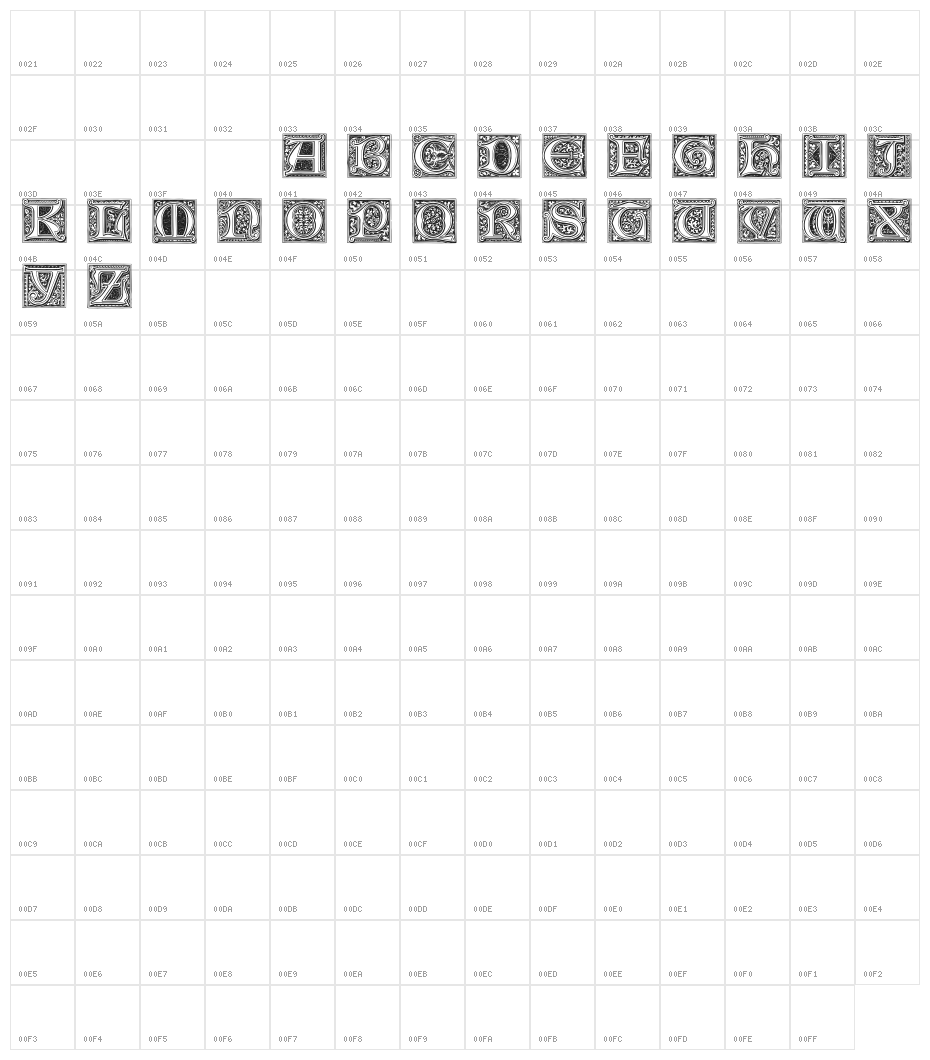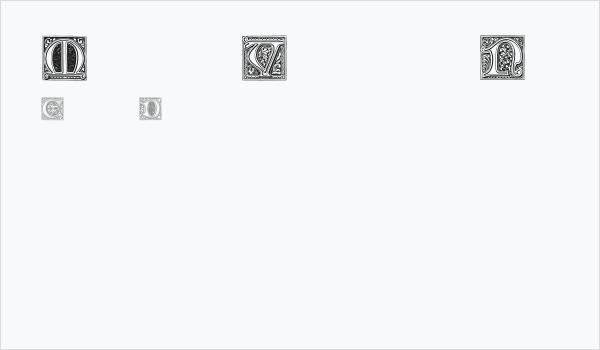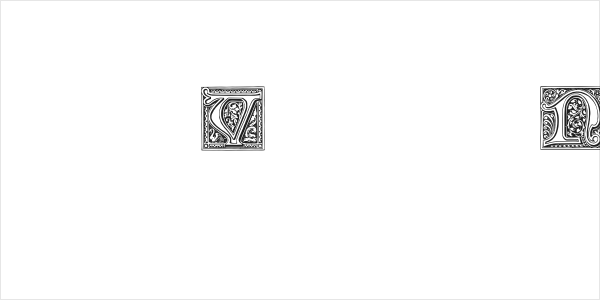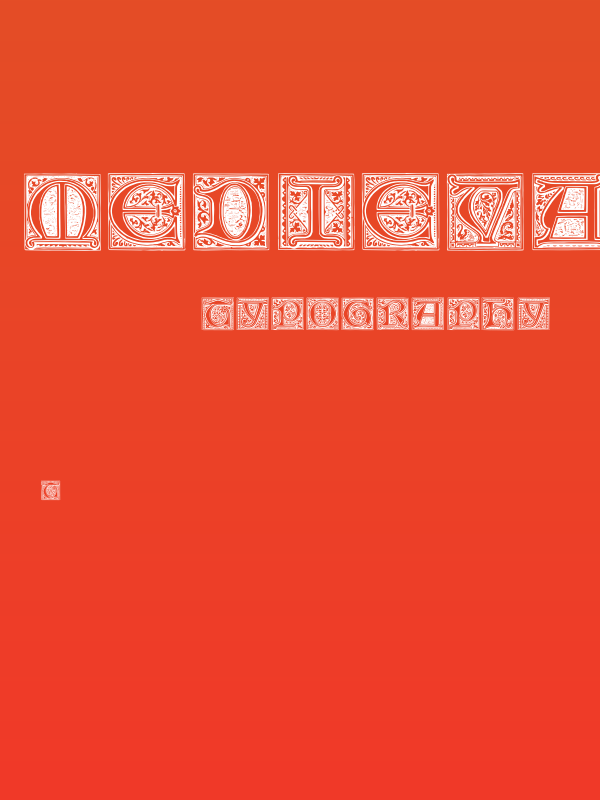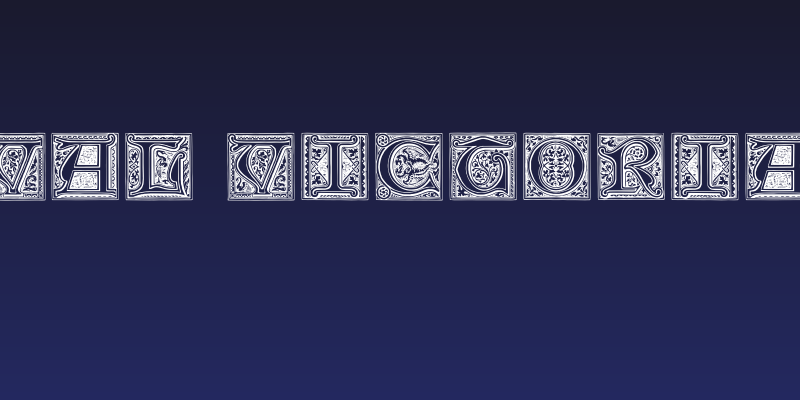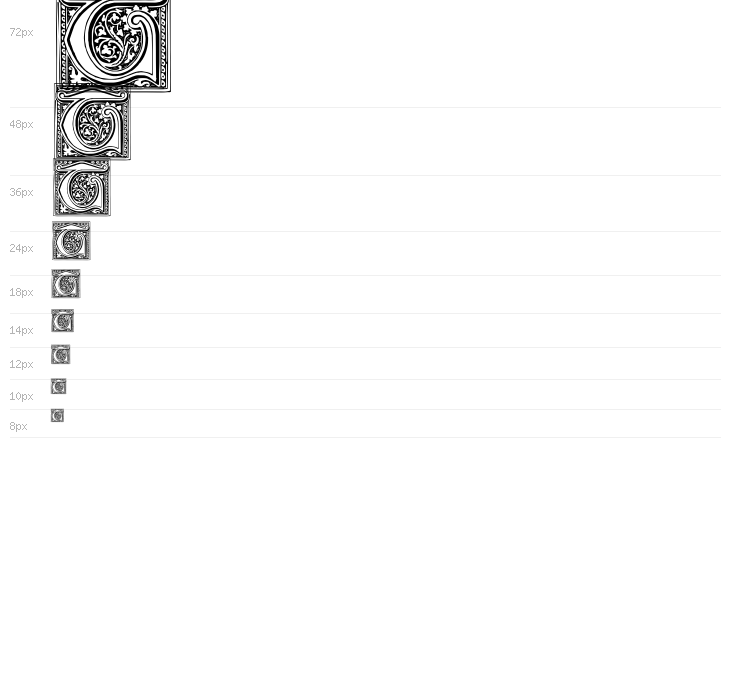
Medieval Victoriana No.1 Font
Medieval Victoriana No.1 Description
This font features an intricate and ornate design reminiscent of medieval and Victorian aesthetics. Each letter is enclosed within a decorative square, filled with elaborate patterns and flourishes that evoke a sense of historical grandeur. The style is highly detailed, with a strong emphasis on embellishment and artistic expression, making it ideal for projects that require a touch of elegance and sophistication. The font's unique character and elaborate design make it stand out, capturing the essence of a bygone era with a modern twist.
| Use Case | Logos, Headlines, Decorative elements |
| Proposed Projects | Ideal for use in historical-themed projects, wedding invitations, book covers, and decorative signage. |